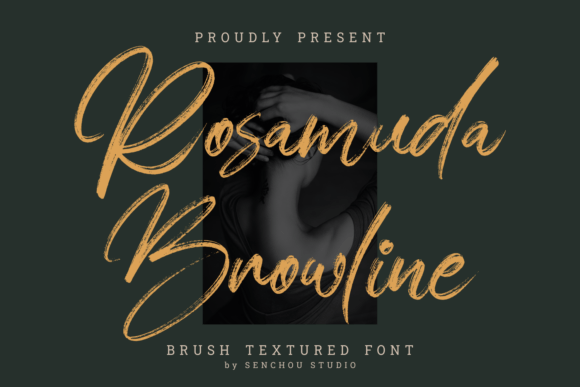
Step into the world of Rosamuda Browline, a script font that dances across your screen with an air of sophistication and grace. Let your fingers glide effortlessly over the keyboard as you witness the magic of this font unfold before your eyes. With its timeless appeal, Rosamuda Browline elevates the ordinary into the extraordinary, transforming your designs into works of art.
Rosamuda Browline is not just a font; it's an experience that invites you to embrace your creativity and express yourself in ways you never thought possible. Feel the rush of inspiration as your ideas flow onto the page, guided by the smooth curves and elegant lines of this enchanting typeface. Let your imagination soar as you craft logos, branding materials, and invitations that exude professionalism and artistic flair.
With its brush-textured strokes and hand-lettered charm, Rosamuda Browline breathes life into your designs. The carefully crafted letterforms dance harmoniously, creating a visually stunning effect that commands attention. Whether you're a seasoned designer or just starting your creative journey, this font is your passport to a world of endless possibilities.
Indulge in the beauty of Rosamuda Browline and let your designs shine brighter than ever before. This captivating font is a testament to the power of creativity, transforming the mundane into the magnificent. Join the league of design enthusiasts who have discovered the magic of Rosamuda Browline and unlock the full potential of your imagination.